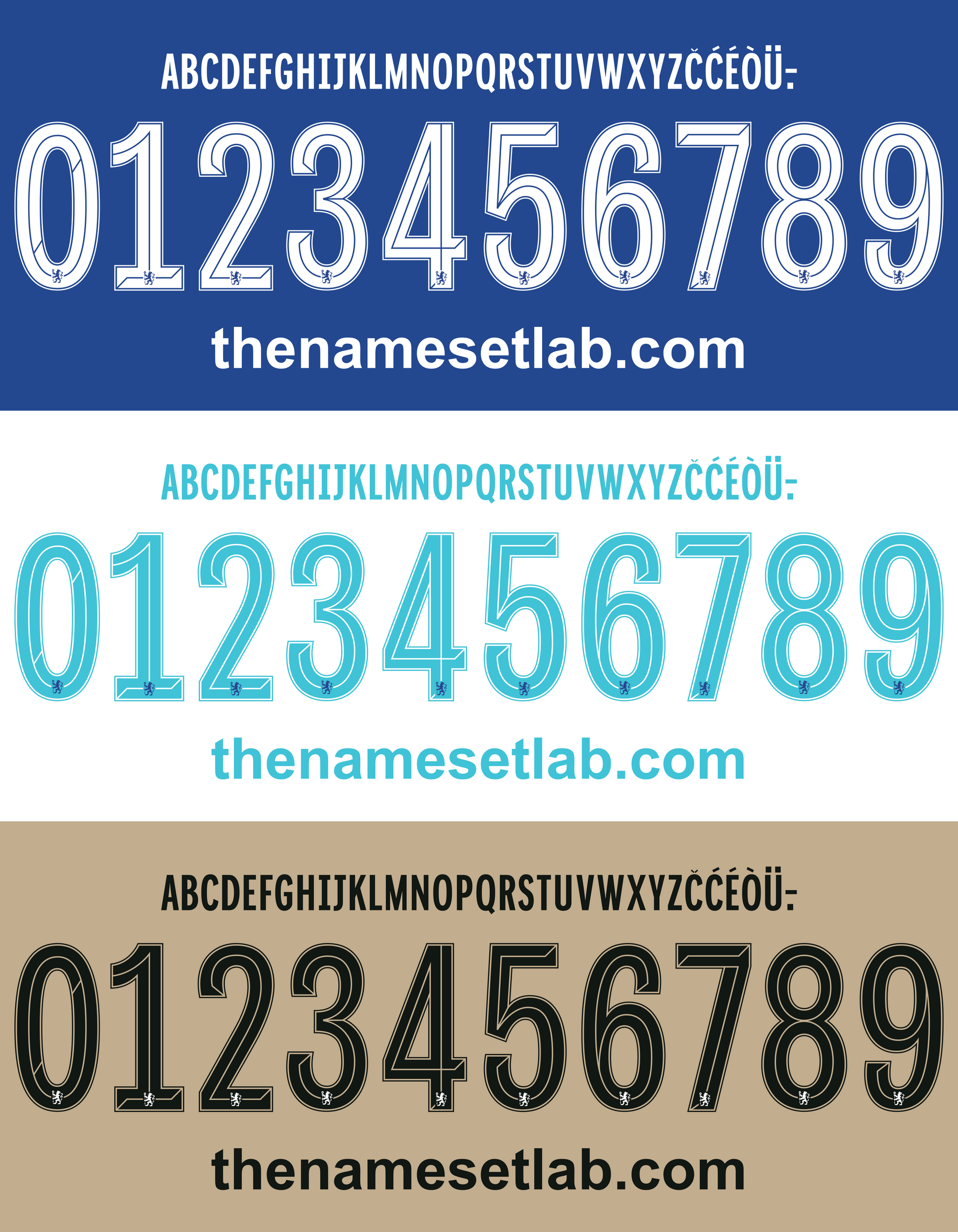
Chelsea 2022-2023 UCL / Cup Font Nameset AI Vector File
Download this Chelsea 2022-2023 UCL / Cup nameset as an editable .ai vector file. Features the Classic Premier font style, ideal for recreating Champions League or cup match shirts, custom prints, or digital projects. A great choice for collectors and Chelsea fans.